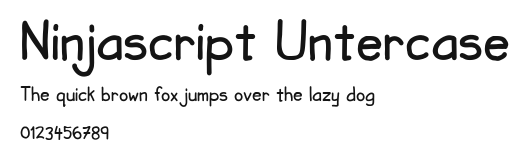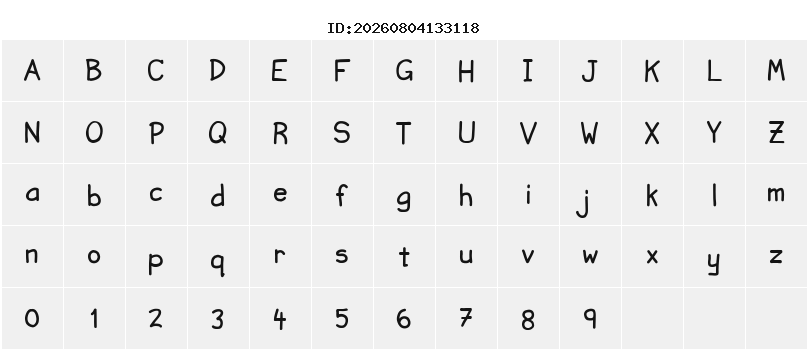
Ninjascript Untercase Preview
• Font Name: Ninjascript Untercase
• Font ID: FontMonkey: Ninjascript Smallcaps: 2006
• Full Font Name: Ninjascript Untercase
• PostScript Name: NinjascriptUntercase
• Designer: Font Monkey
• Manufacturer: P.D. Magnus
About Ninjascript Untercase.ttf
Ninjascript Untercase.ttf is a modern, elegant sans-serif font designed for ultimate readability and visual harmony. Perfect for branding, headlines, web design, and print materials.